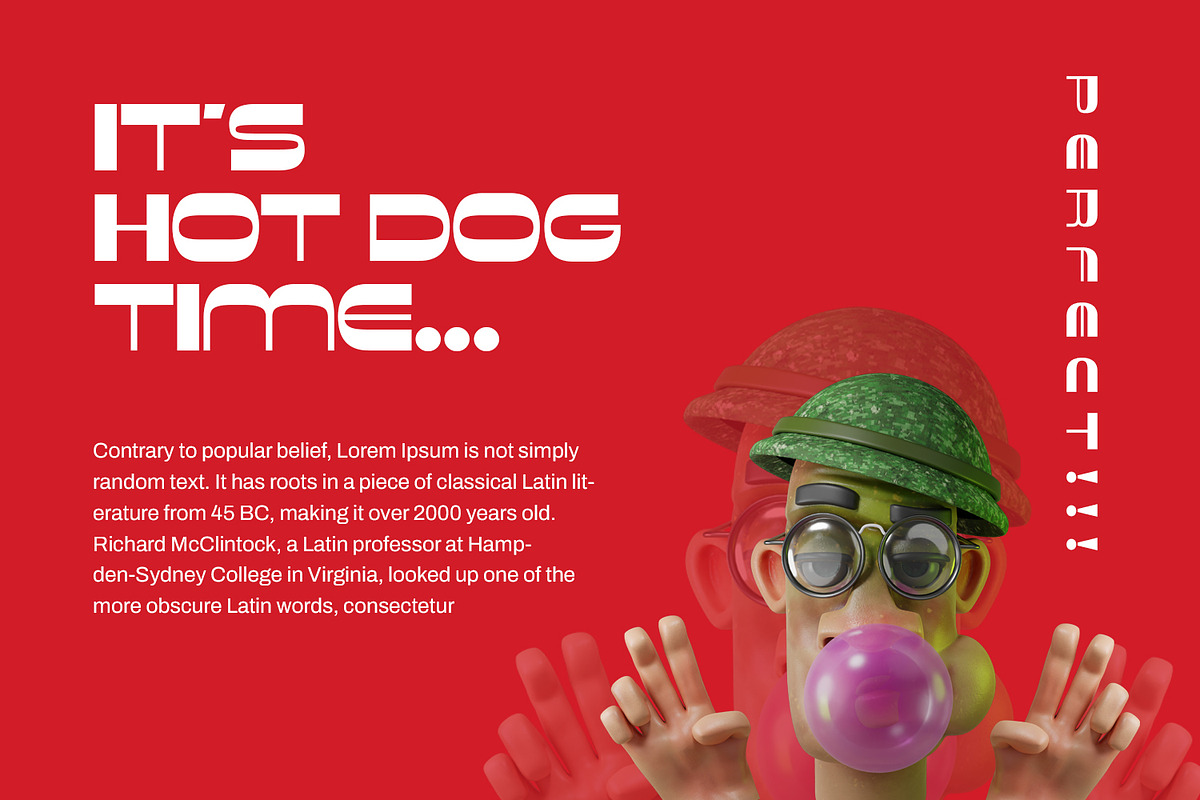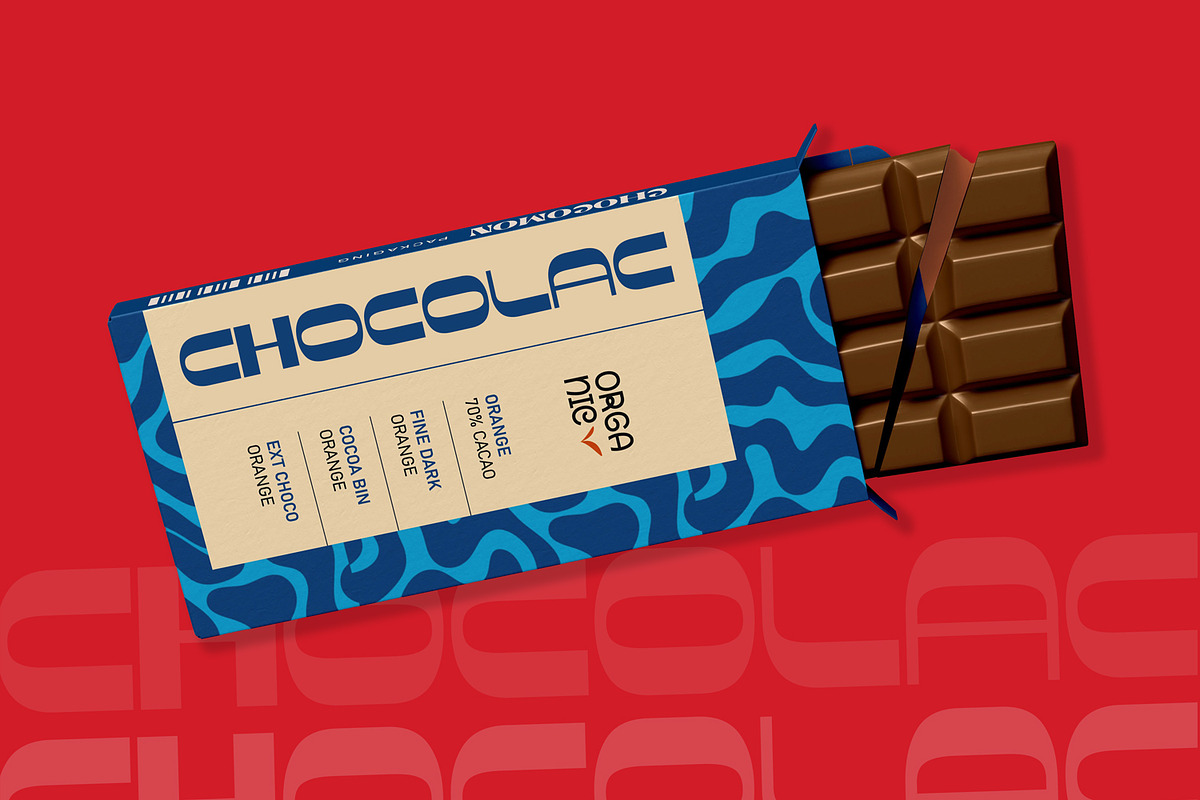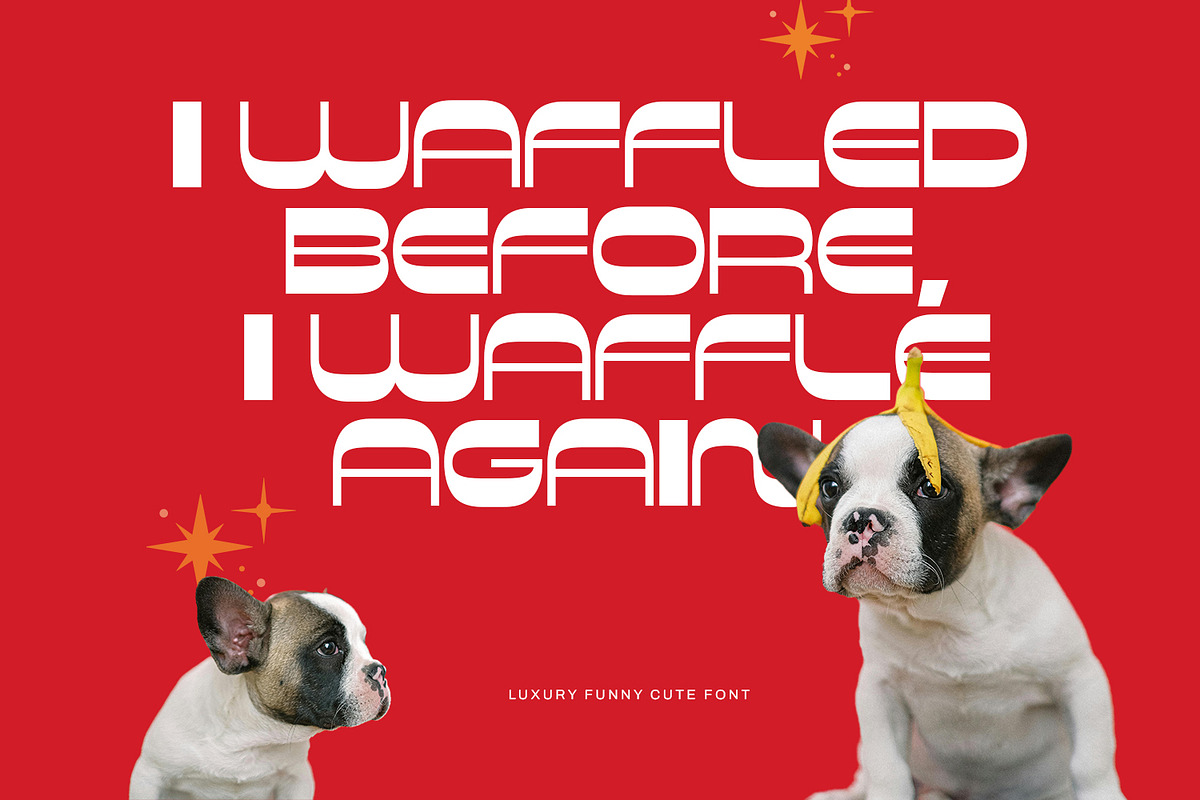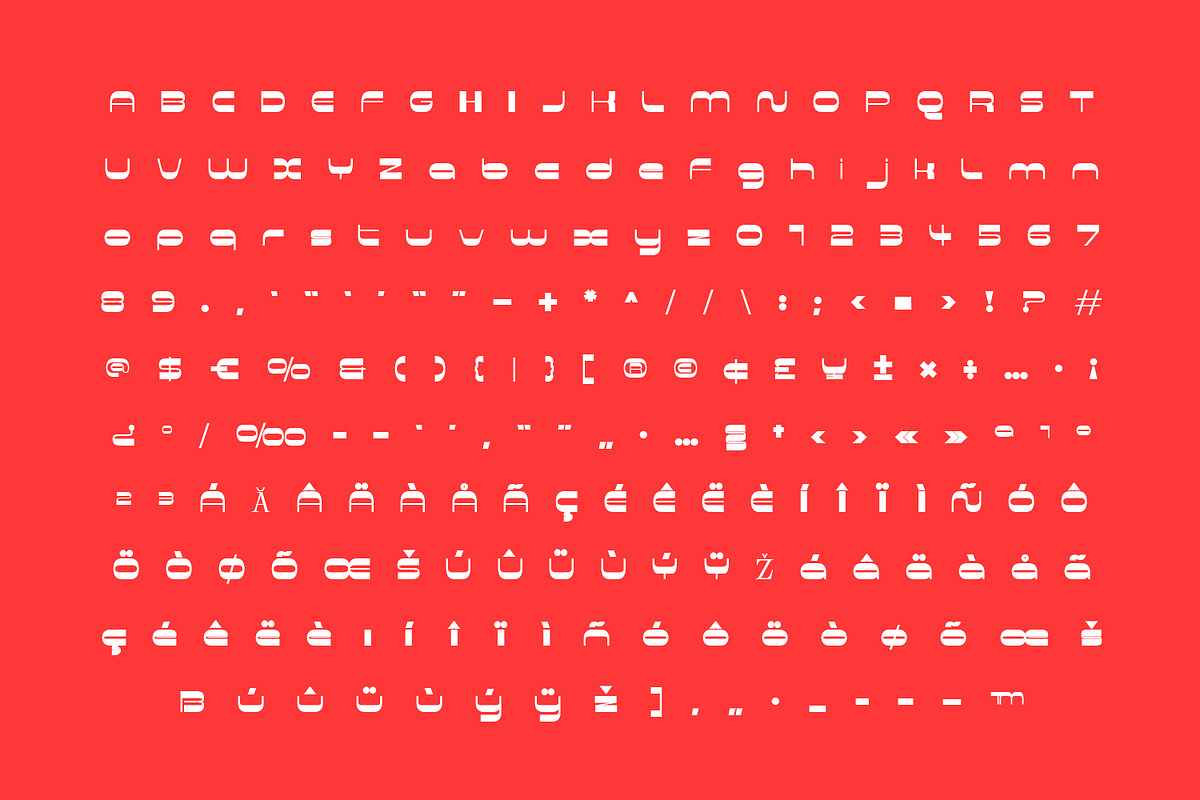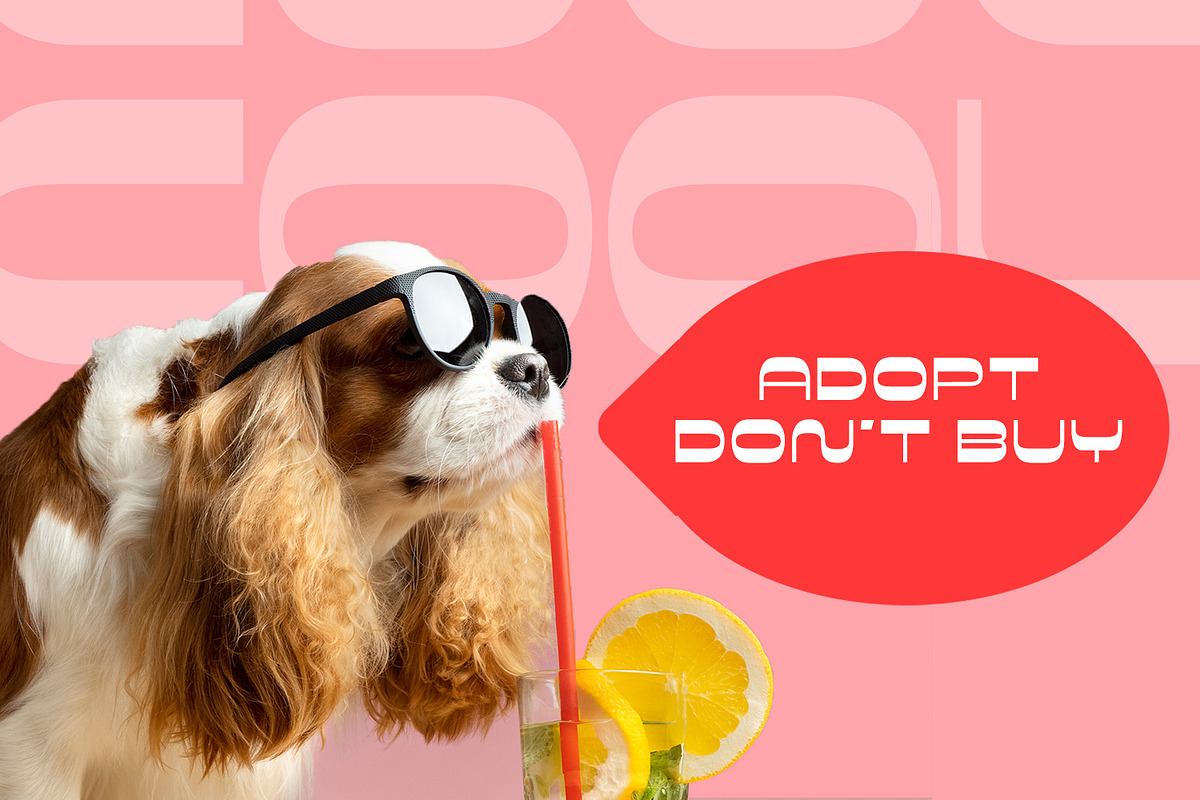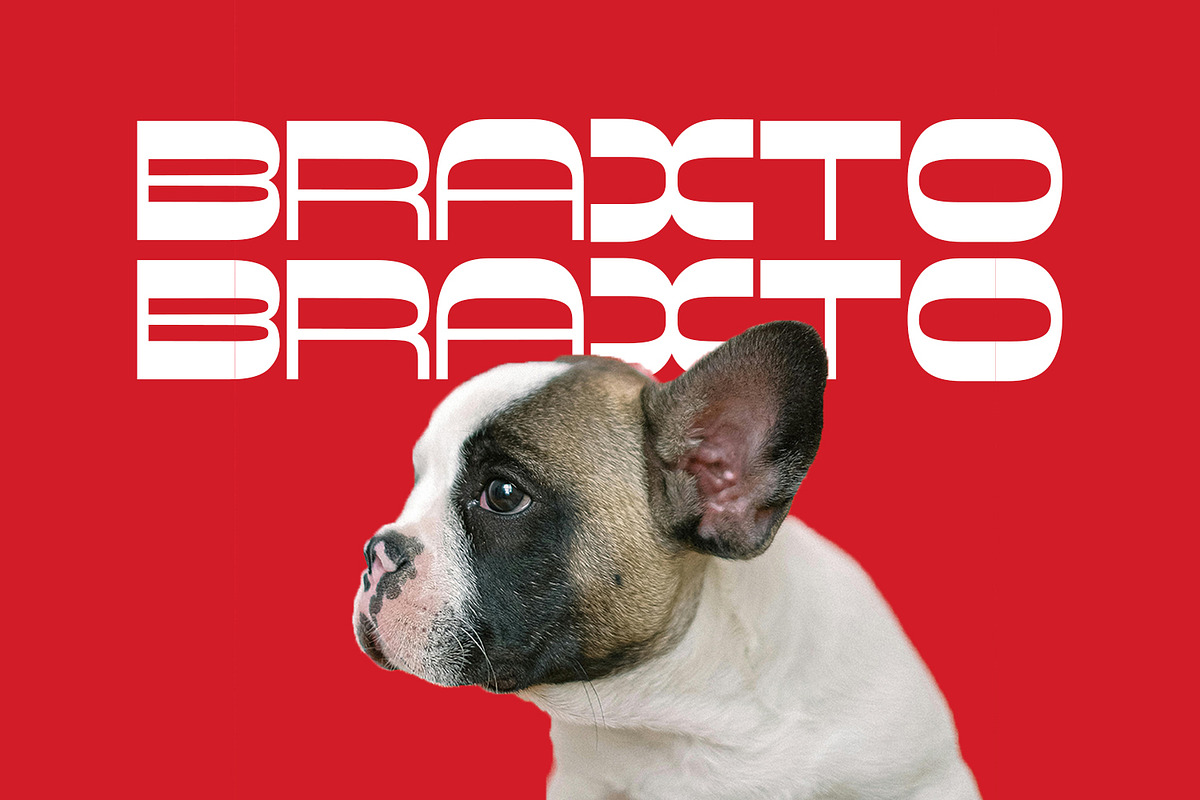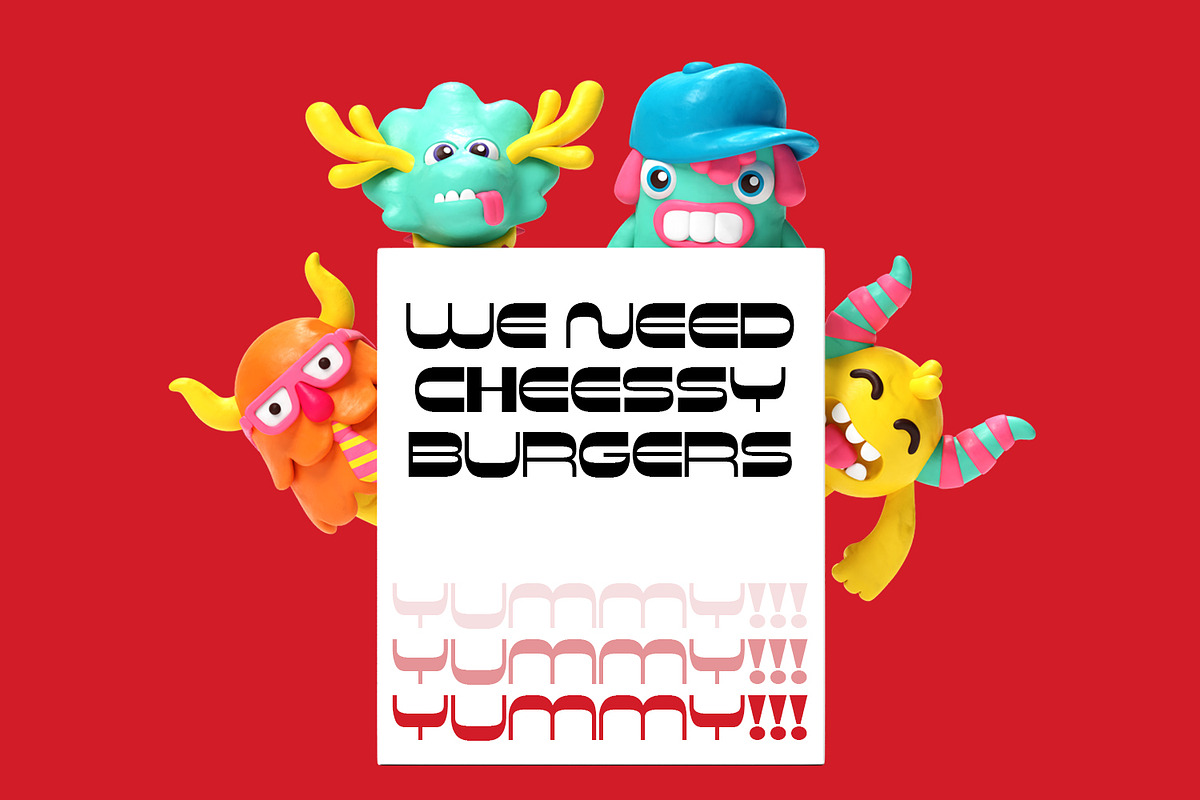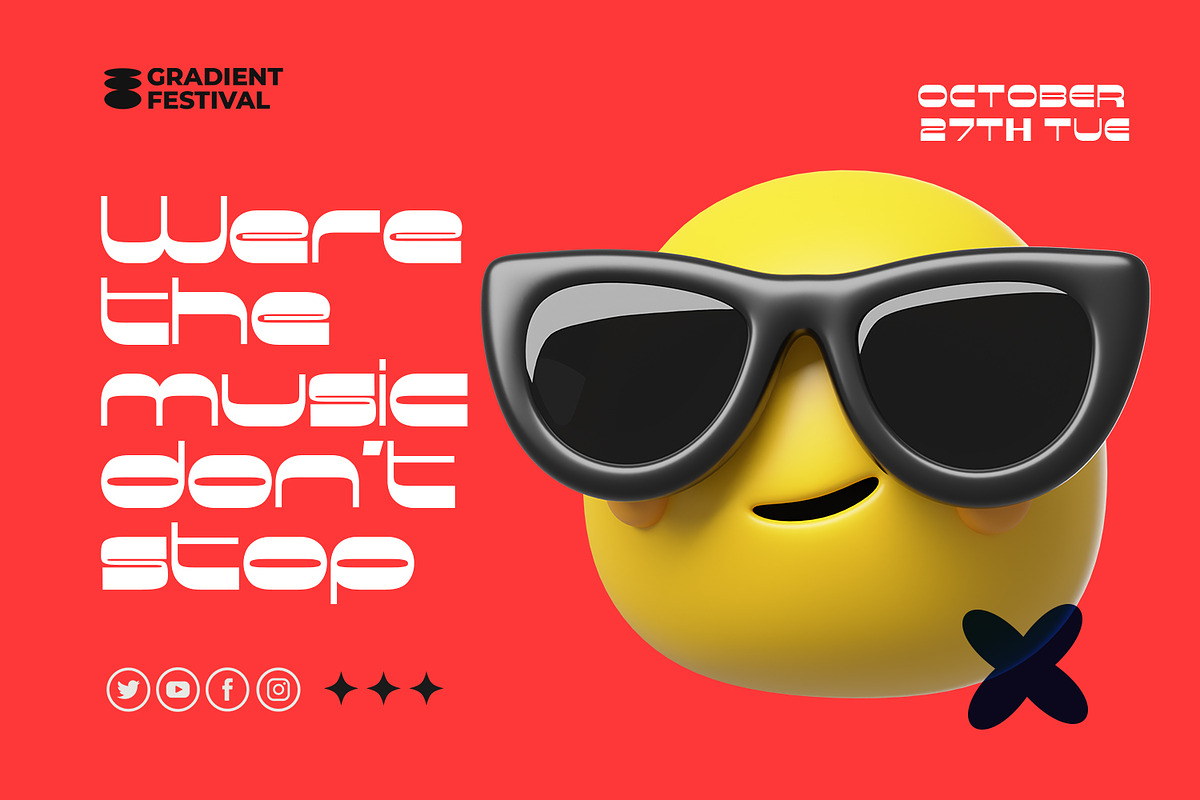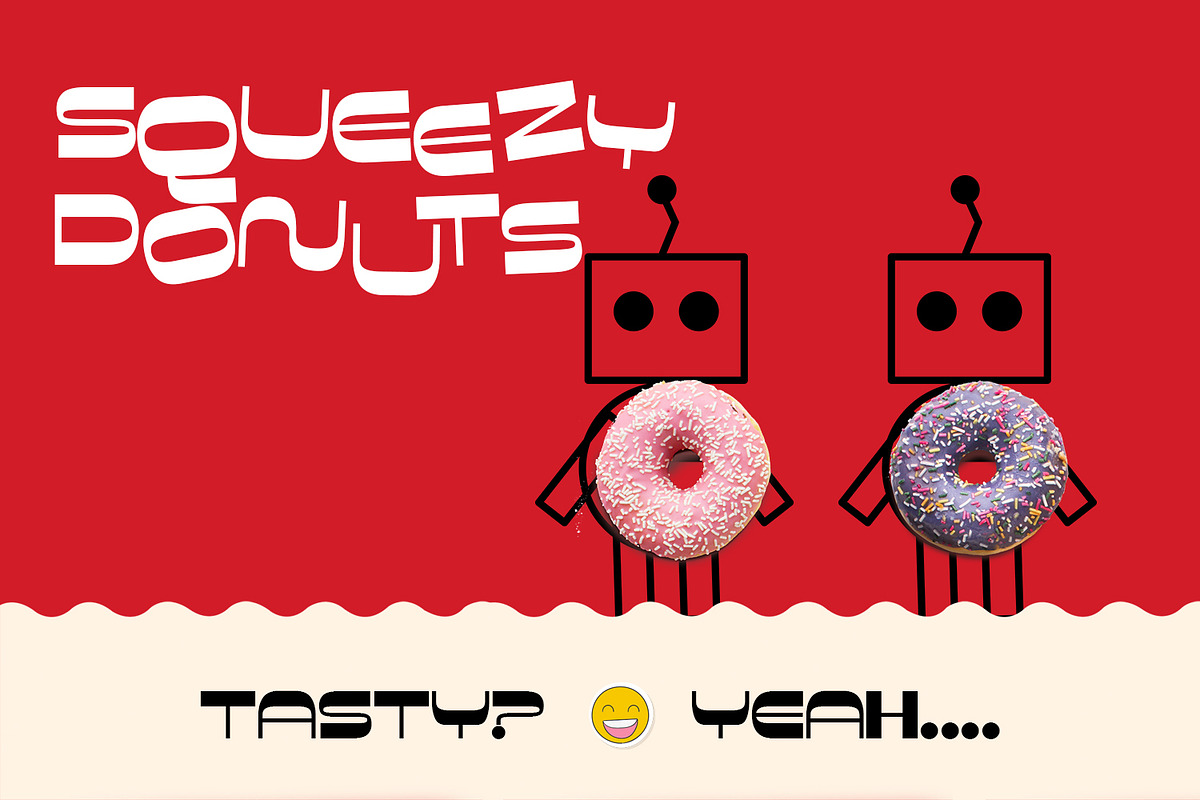
Braxto Display
Braxto is a playful and vibrant display font designed to bring a burst of joy to your creative projects. Perfect for funny posters, cheerful banners, party invitations, social media graphics, kids’ designs, and more, Braxto combines a modern look with a cute and happy vibe that instantly grabs attention.
This unique typeface blends bold curves and quirky shapes to convey energy, warmth, and creativity—making it ideal for brands and creators looking to express fun, friendliness, and approachability.
✔️ Features: Perfect for funny, cute, and modern design styles
Great for posters, banners, merchandise, and web use